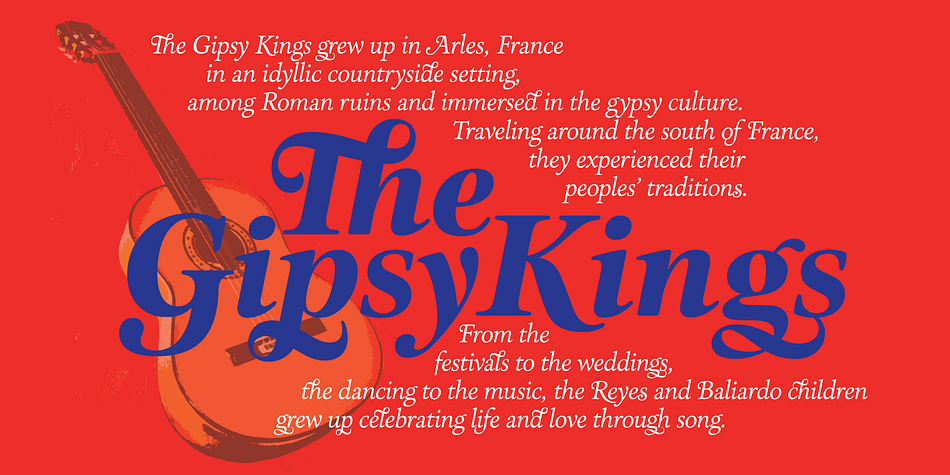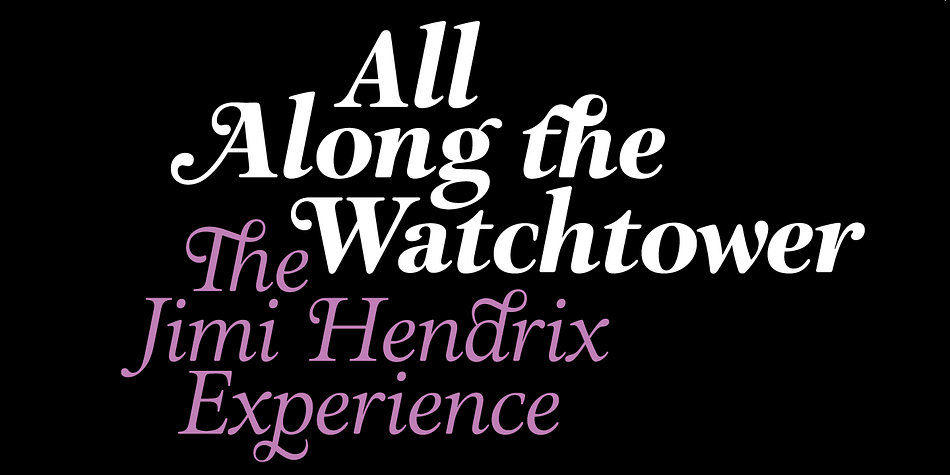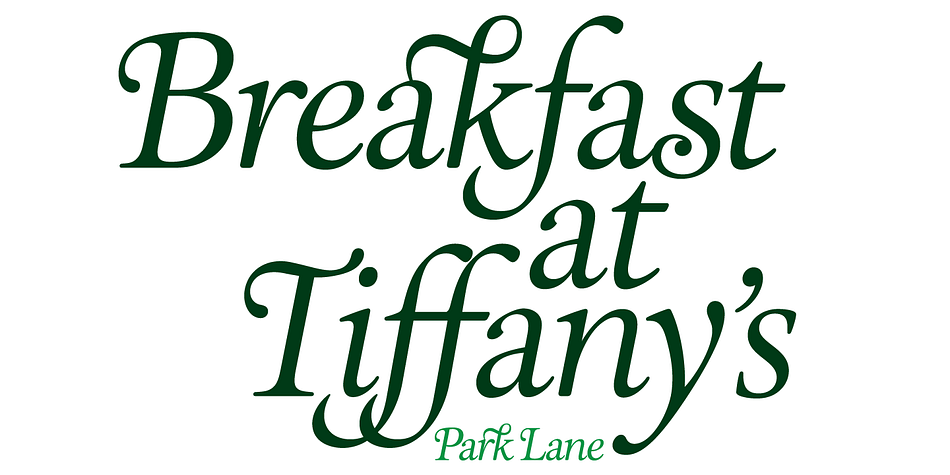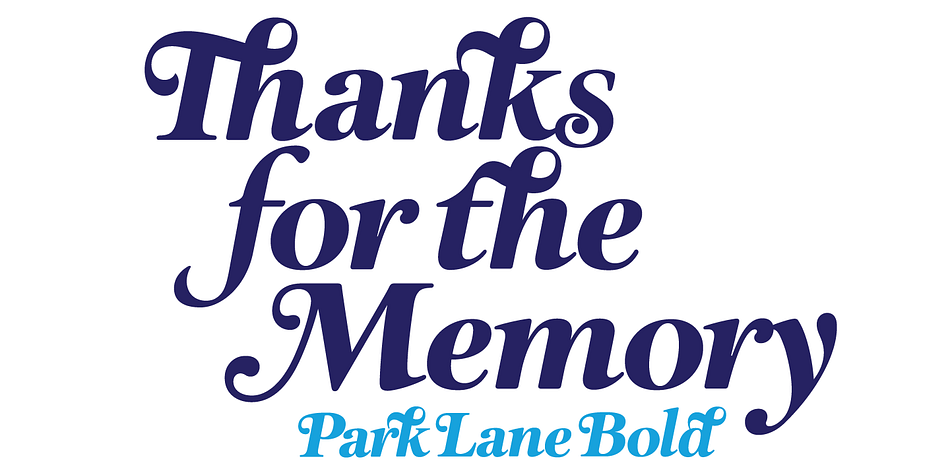
Designed by Alan Meeks, Park Lane is a serif and display serif font family. This typeface has two styles and was published by Alan Meeks Collection.
A Classic Italic Roman with a set of alternative swash caps and a number of original swash lowercase characters that can create a number of unusual ligatures when
connecting to the preceding characters. Available in two weights Light and Bold.